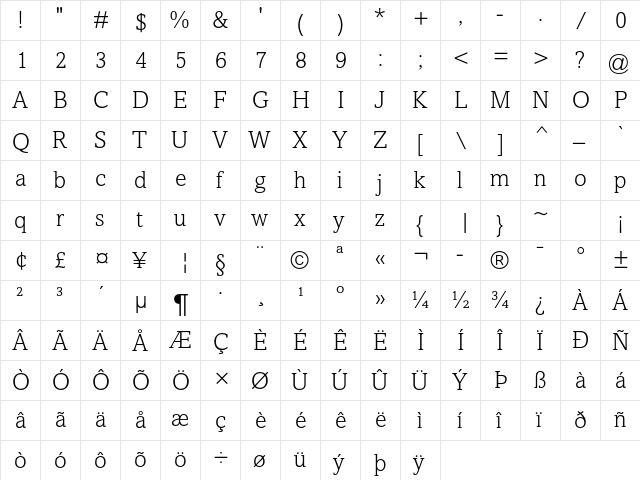
Amasis MT Std Light
Design Context for Amasis MT Std Typeface
Amasis MT Std offers clean, dependable letterforms without strong stylistic allegiance, making it a practical choice for designers who need flexibility. Its slender proportions lend an understated elegance to any composition.